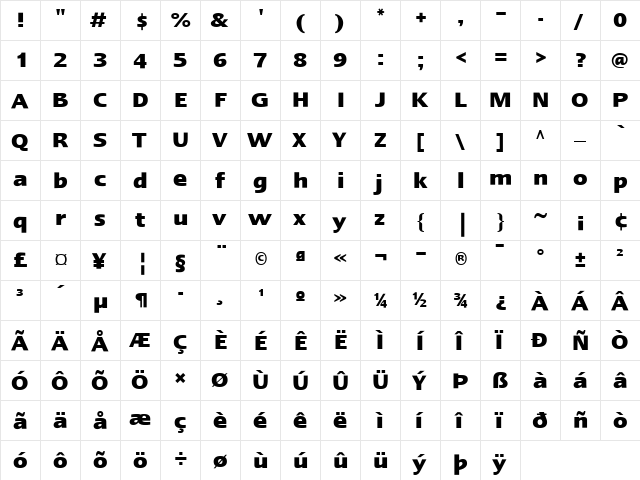
LTErgo Medium Bold
Design Context for LTErgo Medium Typeface
LTErgo Medium is a composed and adaptable typeface that performs quietly and consistently across a wide range of design contexts. The heavy weight commands attention and anchors typographic hierarchies.